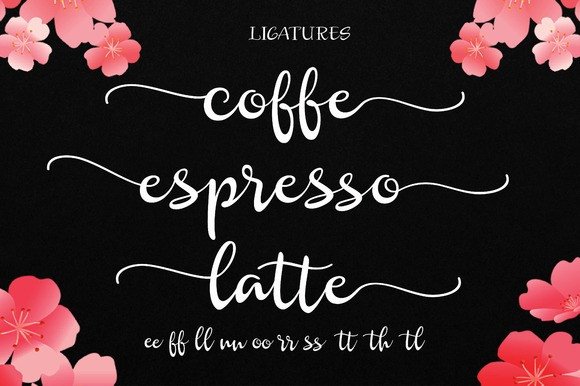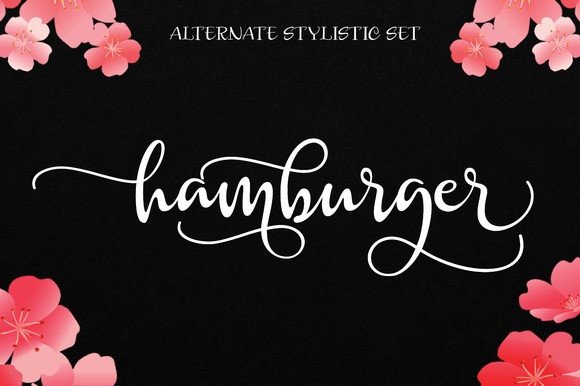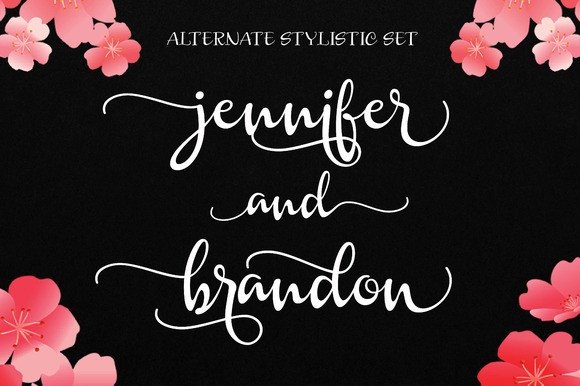
Victoria Font
About Victoria Font
The Victoria Font is a beautiful modern font that comes with 300 unique glyphs. It features super-smooth lines and characters that weld together nicely. The font has a modern calligraphy style and features beautiful swashes. It is easy to read and fun to work with. There is no doubt that you will get professional results with this font and you will be able to amaze your customers.
Creating the Victoria Font
The Victoria Font is created by Byuly Ayika. This small foundry specializes in creating high quality, mainly handwritten fonts. The font was crafted in Banda Aceh, Indonesia. Banda Aceh is a beautiful city positioned close to the coast of Sumatra in the Bay of Bengal.
You can clearly see the influences of the active sea in this font. It’s fresh, curvy and very smooth, just like the ocean waves. I think you can already imagine the designer sitting at the beach with his notepad, drawing away his letters while he is enjoying the sun and a nice beverage. Sounds like a pretty sweet deal.
When creating Victoria the goal was to create a font that not only feels smooth but is also easy to read. To achieve this, the designer decided to make the letters thicker than most handwritten fonts. As you can see this was the perfect decision as it allows for creating readable high quality text.
Stylistic Alternates
Stylistic Alternates (also called Stylistic sets) were originally designed to offer various effects to the words you are typing with a specific font. The stylistic alternates in the Victoria font will give it a more animated and informal visual appearance. It will increase the appeal of the font. For example, instead of using a regular -v- you can choose to select one of the stylistic alternates. In the previous image you can see that the designer choose the -v- with a beautiful long swash.
Ligatures
Ligatures is the wonderful feature of combining certain combinations of letters to make the font more readable and visually appealing.
This is great when for example you are writing words with certain letters that follow up, such as tt, ll, oo. A font without ligatures will simply repeat the letter. A font like Victoria however, which contains ligatures, will detect that a character is repeating and will combine the 2 repeating characters with a beautiful single character.
Ligatures are really a sign of a high class font. We recently read a review about the Victoria font that said the font is basically a light-weight version of Laura Worthington’s beautiful Samantha Script font. Obviously the styles are different and Victoria is not as extended as the Samantha font, but we think it shares the elegance and the attention to detail.
Calligraphy Font
Victoria is a script font that features modern calligraphy characteristics. Digital calligraphy fonts are becoming increasingly popular over the last couple of years and Victoria is one of those fonts that stands out in the crowd.
Calligraphy is described as a visual art related to writing. Calligraphy is the design and execution of lettering. This is usually done with a dip pen or brush, although there are many other writing instruments that are used for creating calligraphy fonts.
Currently calligraphy is an art form that is really flourishing because of small designers and crafters that are creating beautiful invitations and signs. Victoria is one of the fonts that is extremely suitable for this.
Script Font
As mentioned in the previous paragraph, Victoria is a script font with calligraphic influences.
Script fonts are fonts that consist out of fluid strokes created by handwriting. Victoria is exactly that. After the handwriting process the font was scanned and digitally optimized to become super smooth. This way it becomes suitable for both digital and print design.
Fancy Font
Victoria is a fancy font. The swashes and swooshes it features are elegant and will make any invitation stand out. It prides itself with it’s smooth lines. The letters weld together nicely which makes it feel very fluid and fun to work with.
Embroidery Font
You can use Victoria as an embroidery font to create beautiful embroidery designs & patches. If you digitize the font for embroidery you can load them up very easily in your embroidery machine and get started on creating beautiful handwritten items.
Cricut Font
Victoria is PUA encoded and is fully compatible with Cricut Design Space. You can easily access all characters of the font in Cricut Design Space. The letters weld together nicely and are thick enough to be cut.